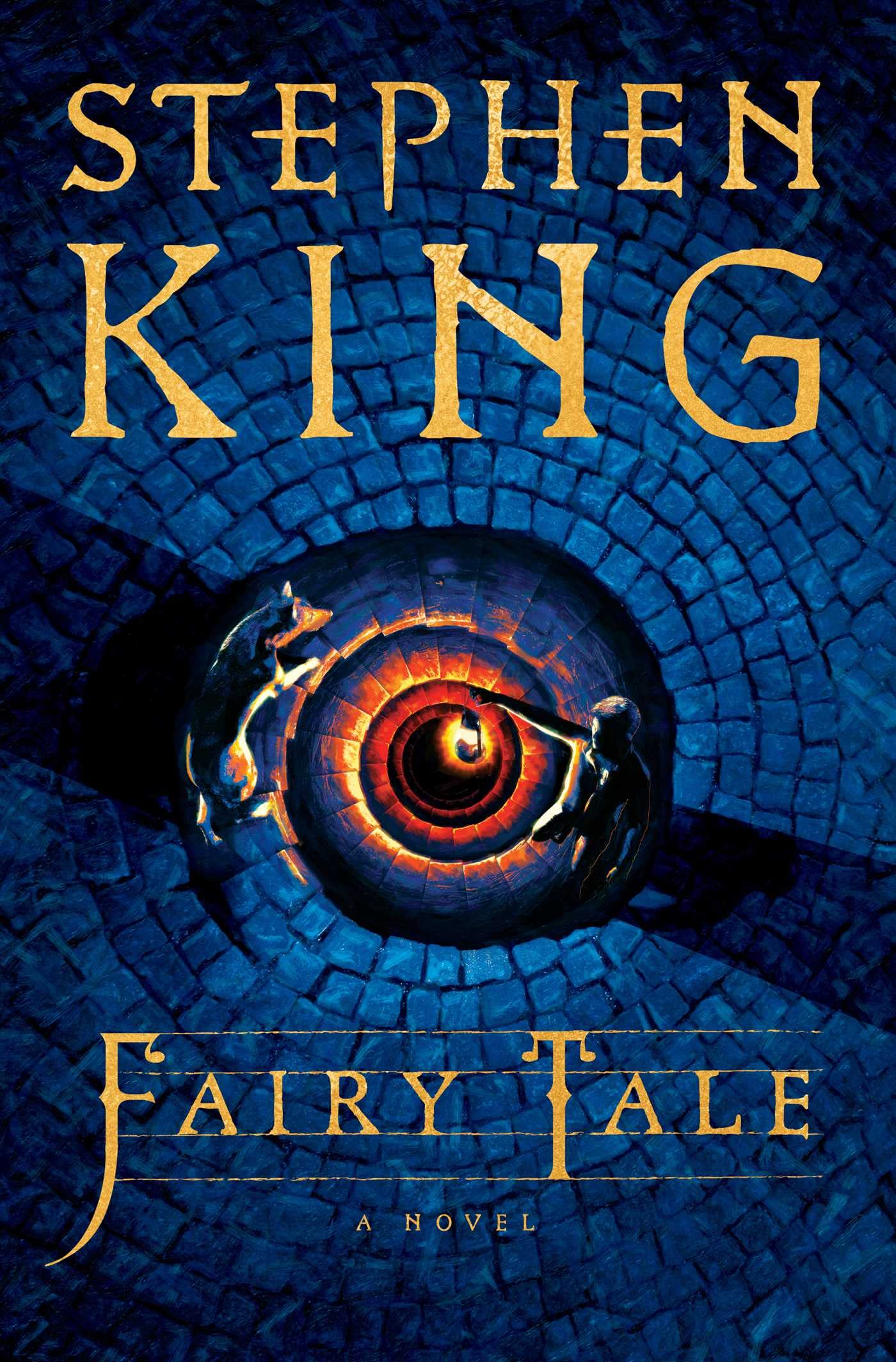
Fairy Tale (novel) Font
BookFairy Tale is a fantasy fiction novel by American author Stephen King, published on September 6, 2022, by Scribner. The story portrays a world where good and evil are at war, a seventeen-year-old boy inherits the keys to a parallel world.
The font used for the book's title is reminiscent of the pre-digital typeface Hamlet. The typeface was created by Edward Johnston and produced in three sizes by Edward Prince for Harry Kessler's Cranach Press to print William Shakespeare's Hamlet in Weimar in 1929. Digital revivals of Hamlet include HamletOrNot by Manfred Klein & CybaPee and Hamlet by ANRT.